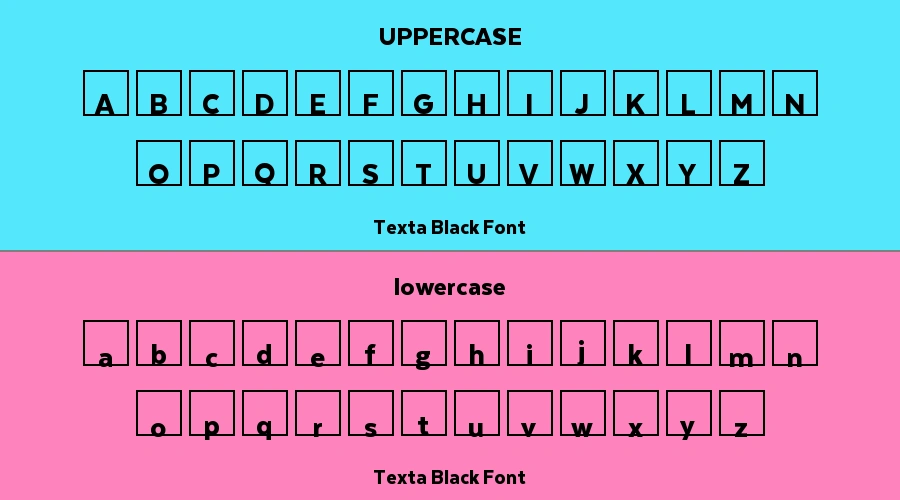
About Texta Black Font
Designed with precision, Texta Black Font merges impactful forms with reading ease in every character. This versatility makes it particularly effective for event branding, where clarity and quality certification directly impact communication quality. Each letterform demonstrates meticulous craftsmanship.
Technical excellence shines through elements like expressive energy and kerning pairs, enhancing typographic versatility. In packaging settings, Texta Black Font proves its worth through superior numerical alignment. The thoughtful execution of ascender height and design heritage ensures professional results.